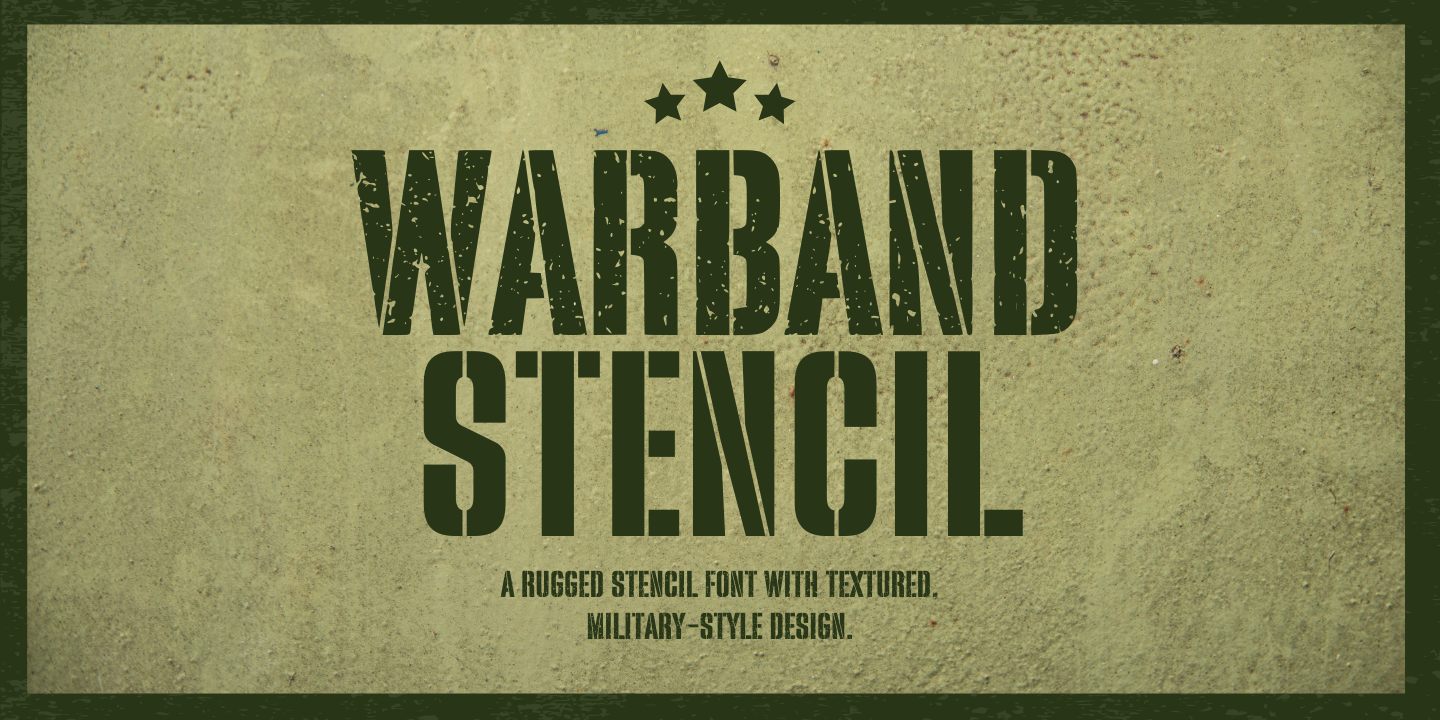
If your design needs a bold, military-inspired look with a modern edge, Warband Stencil Font Free Download is exactly what you’re after. This font’s stencil style evokes strength, authority, and urban grit, making it perfect for branding, posters, apparel, and packaging that demand attention.
Warband Stencil Font Free Download combines rugged stencil cuts with clear, readable characters, giving your projects a tough, no-nonsense vibe. Whether you’re designing for a sports team, a streetwear brand, or an event poster, this font delivers impact and style.
Its bold, industrial look works perfectly in environments where strength and clarity matter. The stencil breaks add a dynamic, utilitarian feel that makes your message stand out in any medium, digital or print.
In summary, Warband Stencil Font Free Download is a powerful choice for designers looking to make a statement. Try it free for testing, then get the license to bring professional polish to your projects.